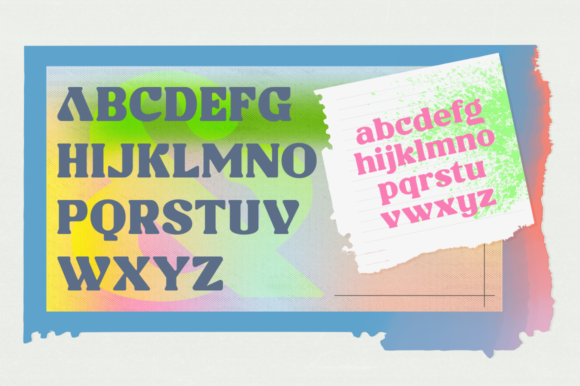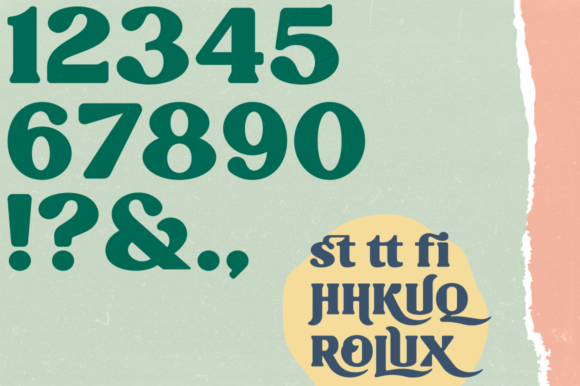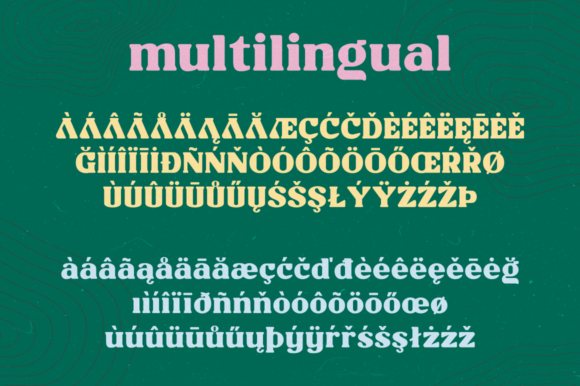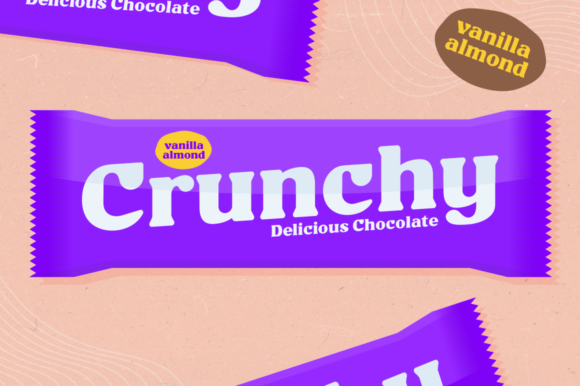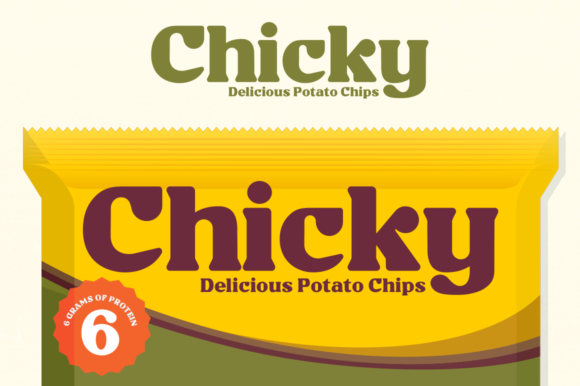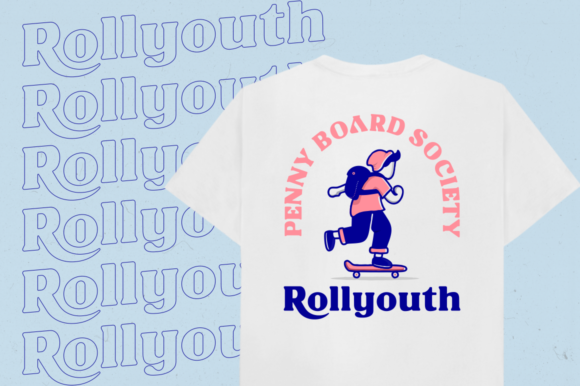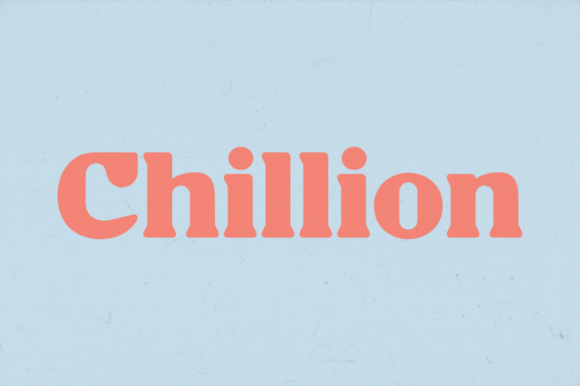
Introducing Chillion Font: The Cute and Unique Display Font for Your Creative Projects
Are you a designer or crafter looking for a font that can add a touch of personality to your creative projects? Look no further than Chillion Font, a cute and unique display font that’s perfect for a wide range of applications. In this article, we’ll take a closer look at Chillion Font, its features, and how you can use it to elevate your branding, print templates, logos, and more.
What is Chillion Font?
Chillion Font is a modern display font that’s designed to make a statement. Its unique and playful design makes it perfect for projects that require a touch of whimsy and personality. Whether you’re creating a logo, brochure, or social media graphic, Chillion Font is sure to grab attention and leave a lasting impression.
Key Features of Chillion Font
So, what makes Chillion Font so special? Here are some of its key features:
- Cute and Unique Design: Chillion Font has a one-of-a-kind design that’s both cute and eye-catching. Its playful curves and lines make it perfect for projects that require a touch of personality.
- High-Quality Vector Graphics: Chillion Font is designed as a high-quality vector graphic, ensuring that it looks crisp and clear even at large sizes.
- Easy to Read: Despite its playful design, Chillion Font is easy to read, making it perfect for use in a wide range of applications, from logos to body text.
- Versatile: Chillion Font is a versatile font that can be used in a wide range of projects, from branding and print templates to logos and social media graphics.
How to Use Chillion Font in Your Projects
Now that we’ve covered the features of Chillion Font, let’s take a look at how you can use it in your projects. Here are some ideas to get you started:
Branding
Chillion Font is perfect for branding projects, such as logos, business cards, and letterheads. Its unique design makes it a great way to stand out from the competition and create a memorable brand identity.
Print Templates
Chillion Font is also great for print templates, such as brochures, flyers, and posters. Its clear and easy-to-read design makes it perfect for use in a wide range of print materials.
Logos
Chillion Font is a great choice for logos, thanks to its unique and memorable design. Whether you’re creating a logo for a new business or rebranding an existing one, Chillion Font is sure to make a statement.
Social Media Graphics
Chillion Font is also perfect for social media graphics, such as Facebook posts, Instagram stories, and Twitter headers. Its playful design makes it a great way to add some personality to your social media presence.
Tips for Using Chillion Font
Here are some tips for using Chillion Font in your projects:
- Use it sparingly: Chillion Font is a bold and eye-catching font, so use it sparingly to avoid overwhelming your design.
- Pair it with a neutral font: Pair Chillion Font with a neutral font, such as Arial or Helvetica, to create a balanced and harmonious design.
- Experiment with colors: Chillion Font looks great in a wide range of colors, so don’t be afraid to experiment and find the perfect color scheme for your project.
In conclusion, Chillion Font is a cute and unique display font that’s perfect for designers and crafters looking to add some personality to their creative projects. Its playful design, high-quality vector graphics, and ease of use make it a great choice for a wide range of applications, from branding and print templates to logos and social media graphics. So why not give Chillion Font a try and see how it can elevate your designs?